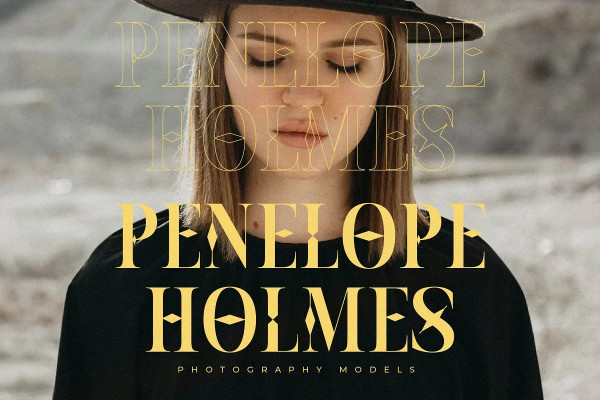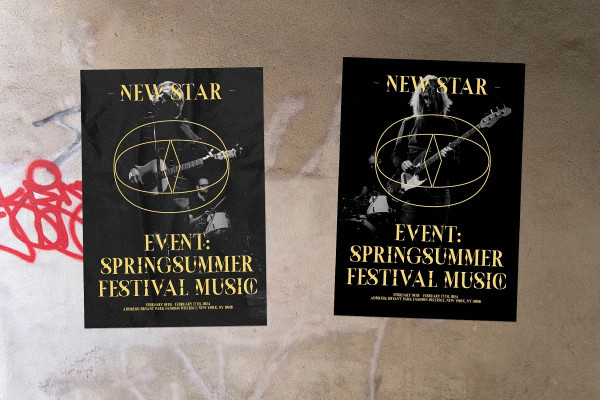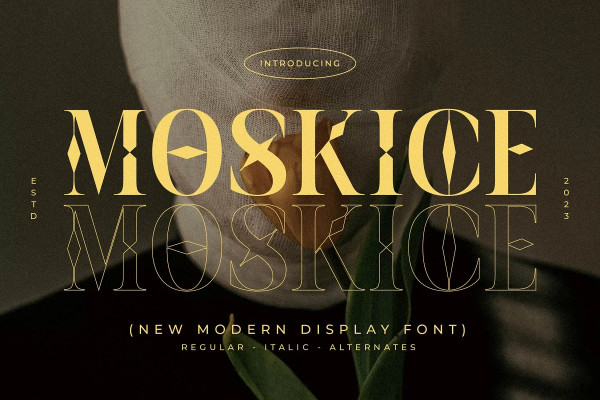
Moskice Font
Moskice Font, created by Storytype, A serif modern and classic typeface that has own unique style & modern look. This typeface is perfect for an elegant & luxury logo, book or movie title design, fashion brand, magazine, clothes, lettering, quotes, and so much more.